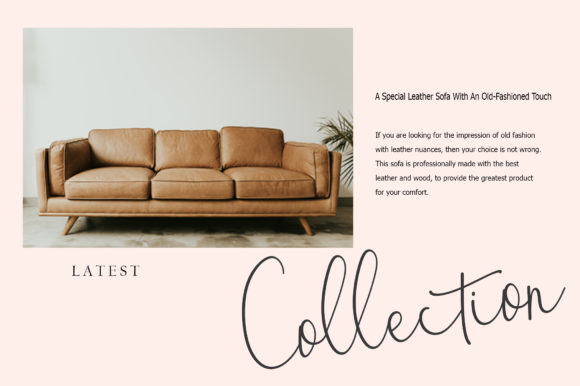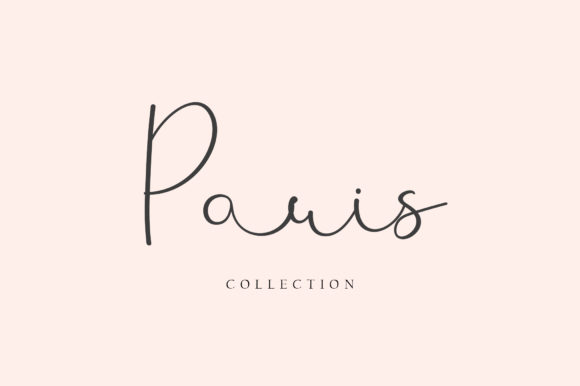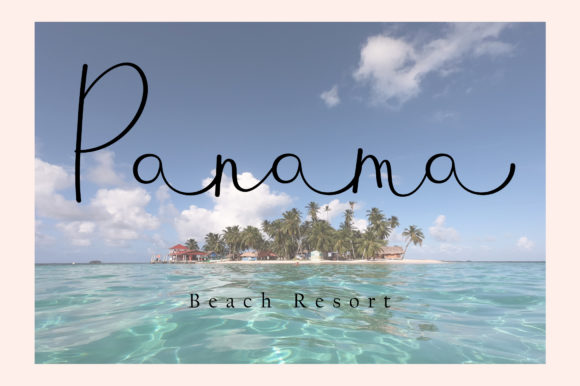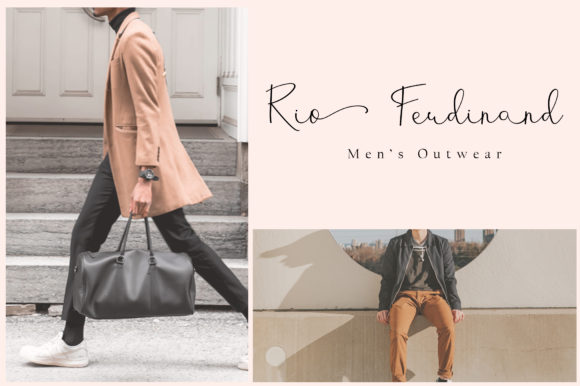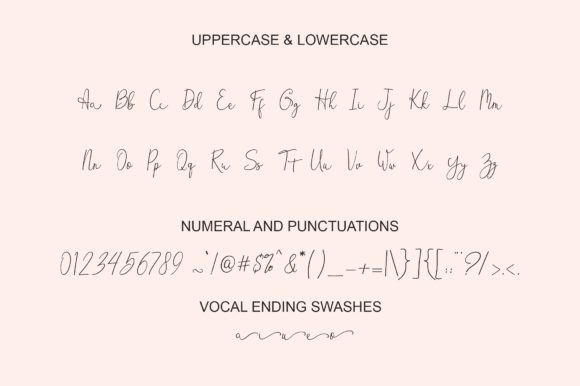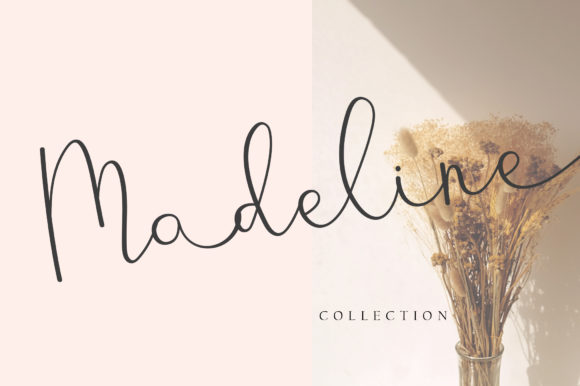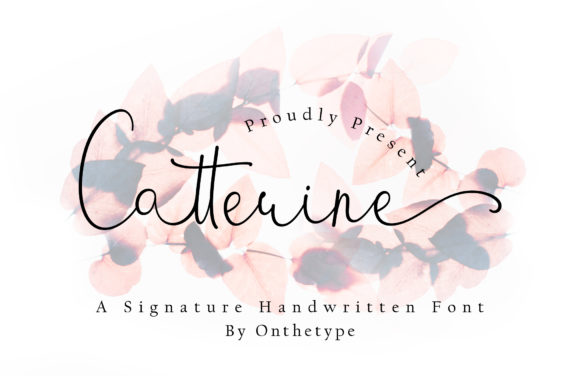
Catterine Font: Elevate Your Designs with Delicate Elegance
Are you on the hunt for a font that exudes sophistication and charm? Look no further than Catterine, a delicate and elegant handwritten font that is sure to capture your heart. With its distinct and well-balanced letters, Catterine is a masterpiece that can elevate your designs to new heights. In this article, we’ll dive into the world of Catterine font, exploring its unique features, versatility, and uses, as well as provide tips and inspiration for designers and crafters.
The Unique Charm of Catterine Font
Catterine font is a beautiful, handcrafted typeface that boasts a unique and captivating style. Its delicate and elegant appearance makes it perfect for designs that require a touch of sophistication and refinement. The font’s distinct letters are carefully crafted to provide a well-balanced and harmonious look, making it a joy to use in a variety of design projects.
Key Features of Catterine Font
- Delicate and Elegant: Catterine font features a slender and refined design that adds a touch of elegance to any project.
- Handwritten Style: The font’s handwritten style gives it a personal and unique feel that’s perfect for designs that require a human touch.
- Well-Balanced Letters: Catterine’s letters are carefully crafted to provide a harmonious and balanced look that’s easy on the eyes.
- Versatile: The font’s versatility makes it suitable for a wide range of design projects, from logos and branding to invitations and digital media.
Uses of Catterine Font
Catterine font is an incredibly versatile typeface that can be used in a variety of design projects, including:
- Logos and Branding: Use Catterine font to create a sophisticated and elegant logo that reflects your brand’s personality.
- Invitations and Stationery: Add a touch of refinement to your invitations, greeting cards, and stationery with Catterine font.
- Digital Media: Use Catterine font in your digital projects, such as social media graphics, blog posts, and website designs.
- Crafting and Scrapbooking: Catterine font is perfect for crafters and scrapbookers who want to add a personal touch to their projects.
Tips for Using Catterine Font
To get the most out of Catterine font, here are some tips to keep in mind:
- Pair with Other Fonts: Experiment with pairing Catterine font with other fonts to create a unique and visually appealing combination.
- Adjust Font Size: Adjust the font size to suit your design needs, and don’t be afraid to experiment with different sizes and styles.
- Add Decorations: Add decorations and embellishments to your text to give it a more personalized and creative look.
Inspiration and Resources
If you’re looking for inspiration or resources to help you get started with Catterine font, here are a few ideas:
- Design Communities: Join online design communities, such as Behance or Dribbble, to see how other designers are using Catterine font in their work.
- Tutorials and Guides: Search for tutorials and guides that can help you get started with Catterine font and learn how to use it effectively in your designs.
Catterine font is a delicate and elegant handwritten font that is sure to capture your heart. With its distinct and well-balanced letters, Catterine is a masterpiece that can elevate your designs to new heights. Whether you’re a designer, crafter, or DIY enthusiast, Catterine font is a versatile and beautiful typeface that can help you create spectacular designs. So why wait? Fall in love with Catterine font and start creating something amazing today!